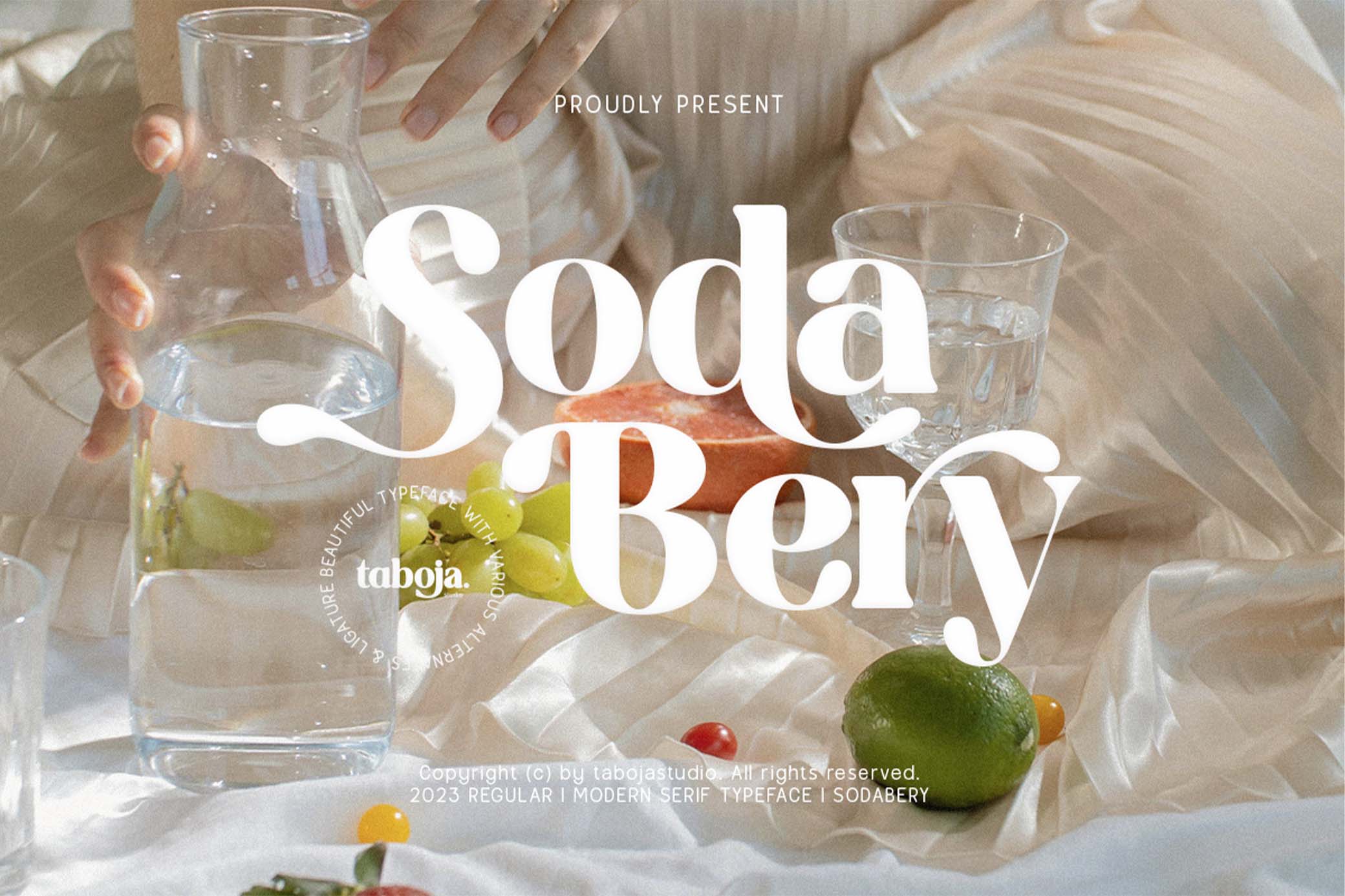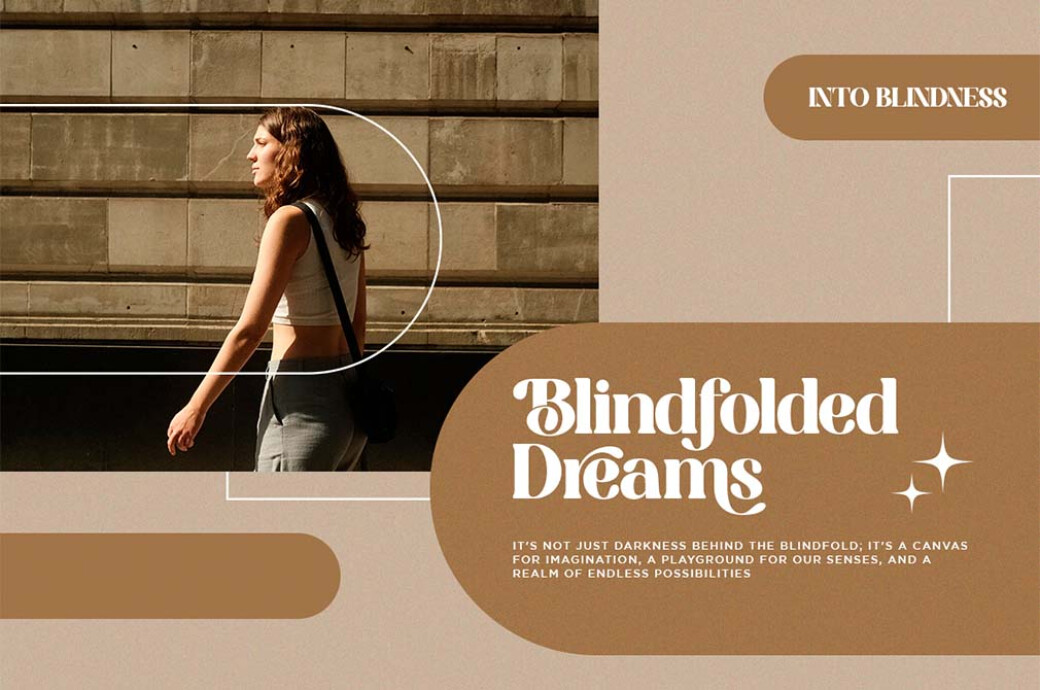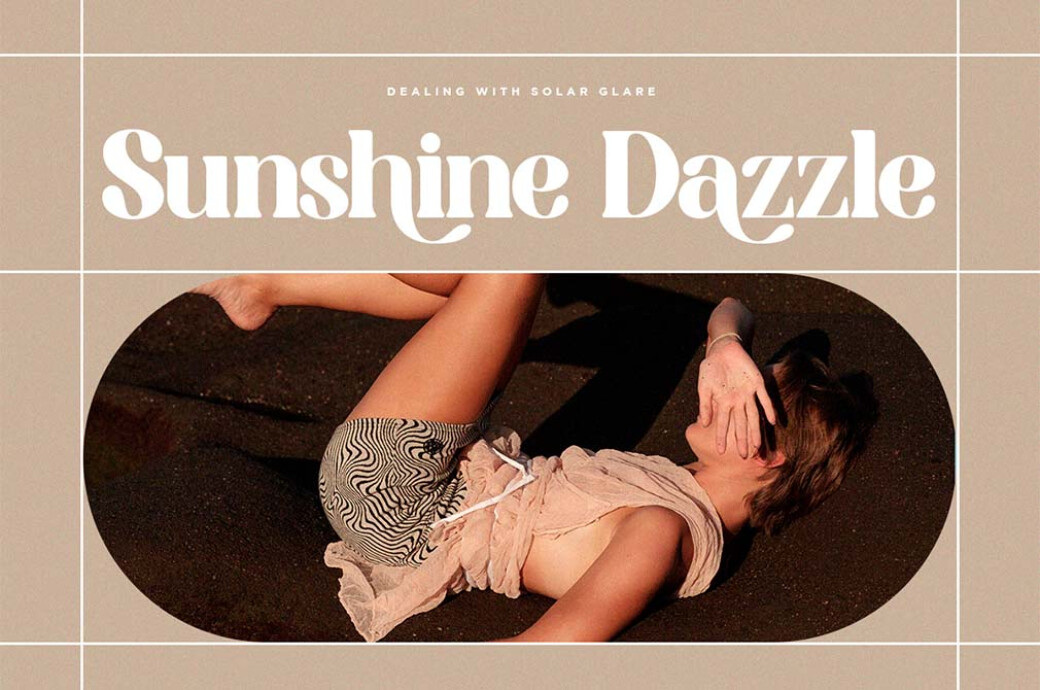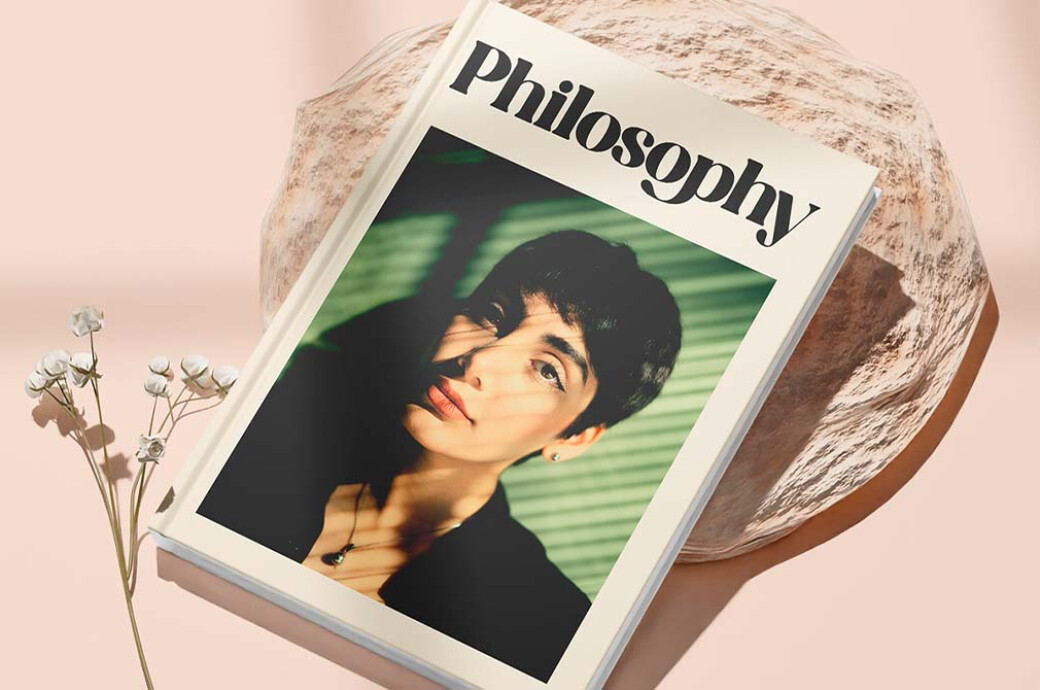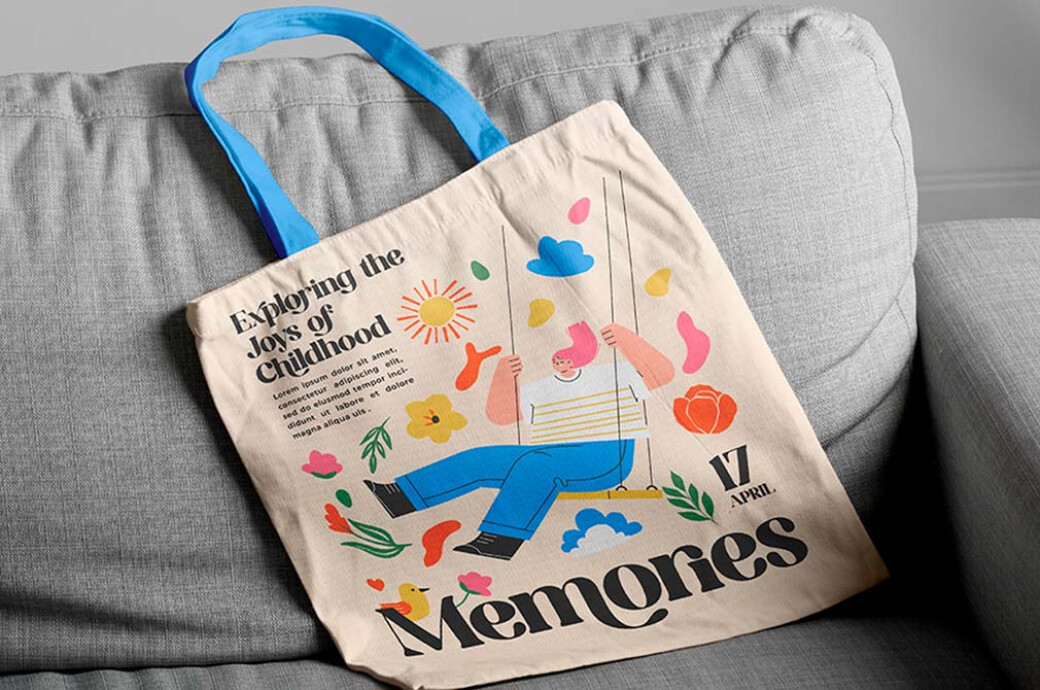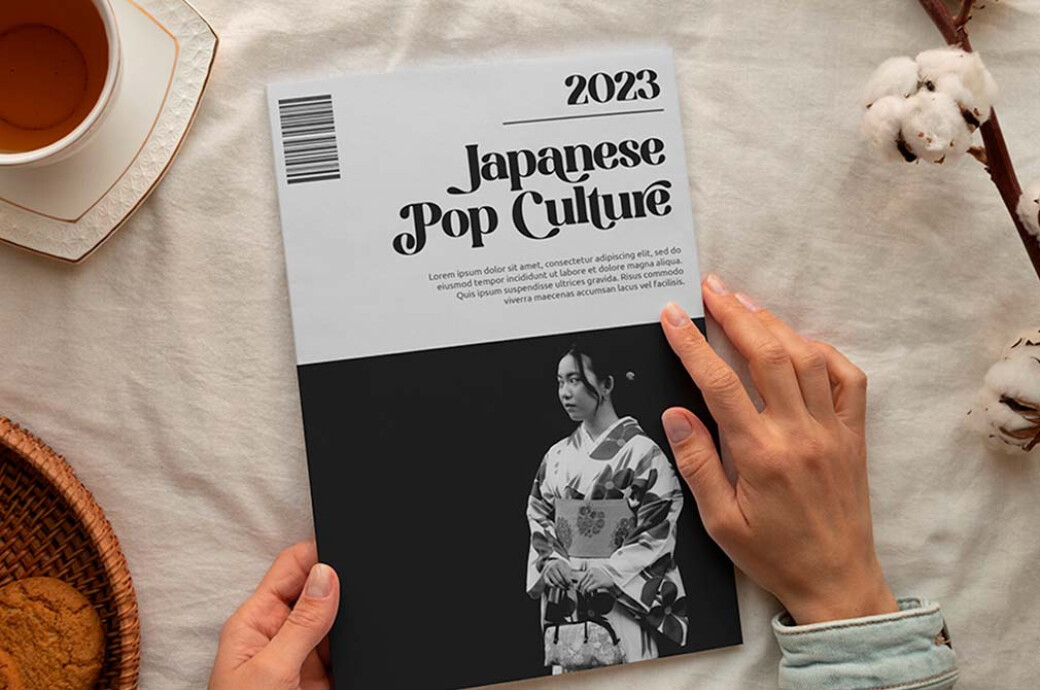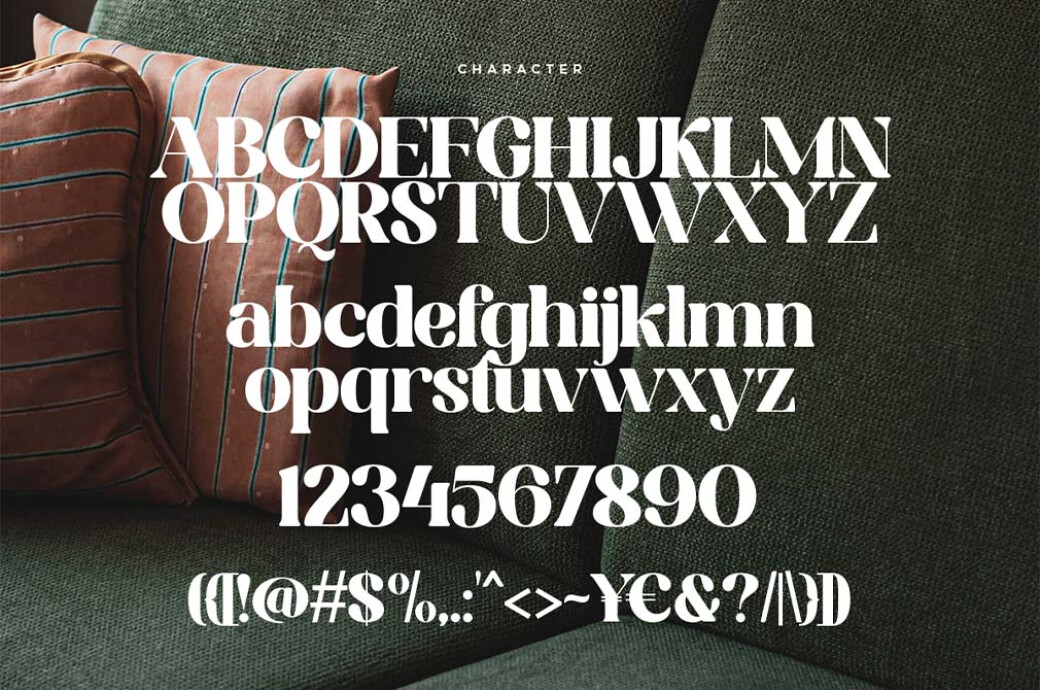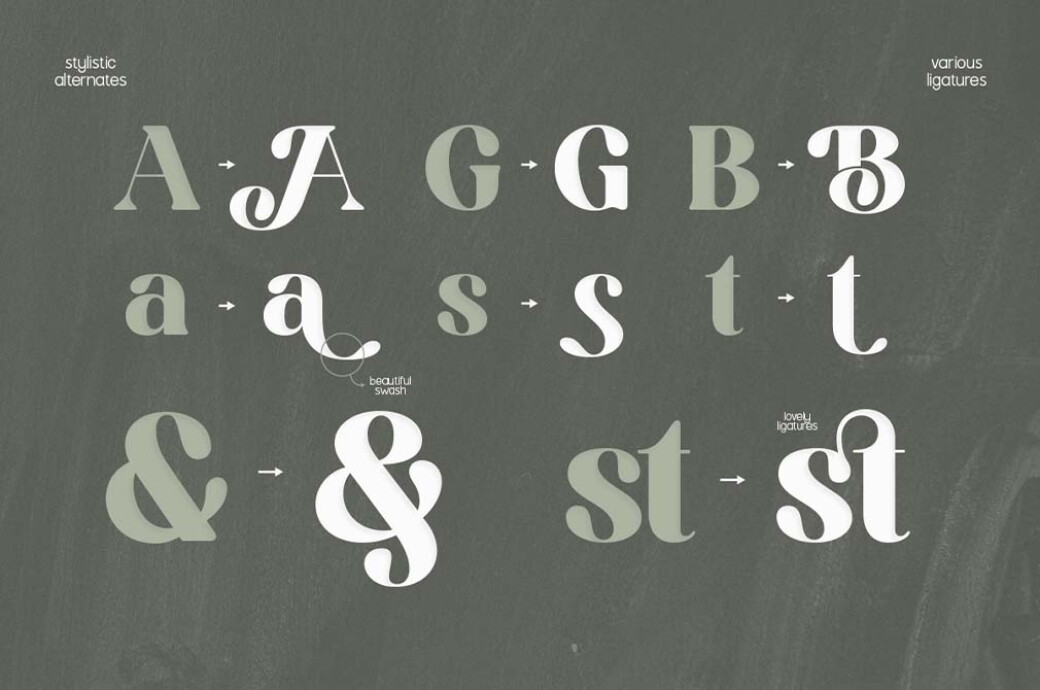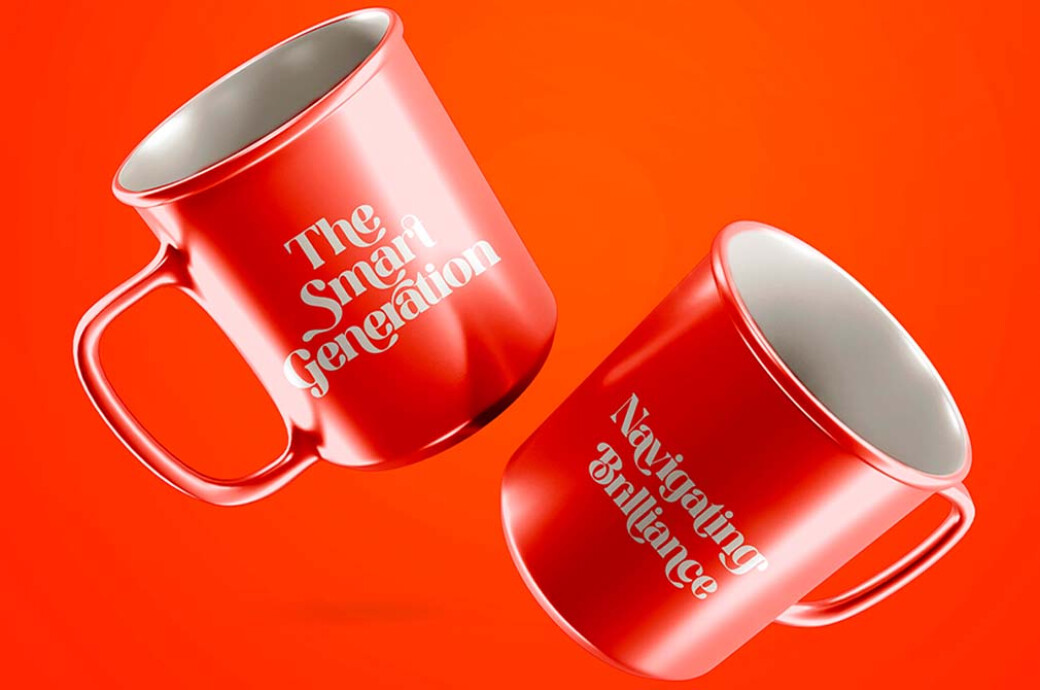
Sodabery | Serif Font
This serif font has the perfect sample phrase because it is as fresh and promising as Sunday morning. Sodabery is an elegant typeface, perfect for projects that require adding a vintage feel, without sacrificing legibility.
It combines two absolute opposites: straight and clean lines of the letter shapes with soft curves of ears and descendants. And makes it pretty good. You can use Sodabery as a standard serif for long texts and at the same time as a display font for headers. Speaking of features, this font has a really extended set of glyphs. We mean it. It encompasses upper and lowercase, numerals and punctuation, alternates and ligatures, as well as accented characters and multilingual support.